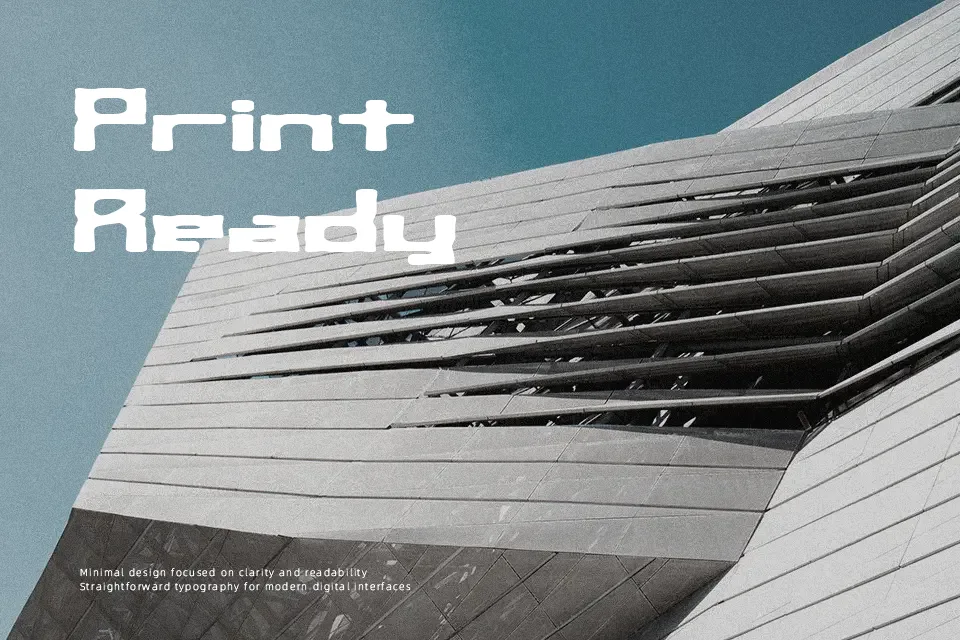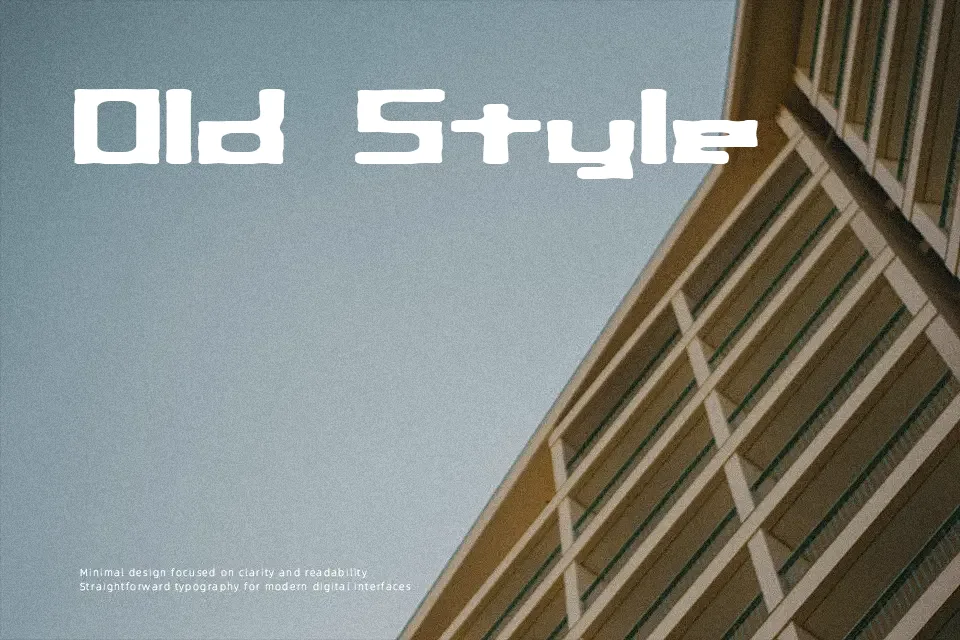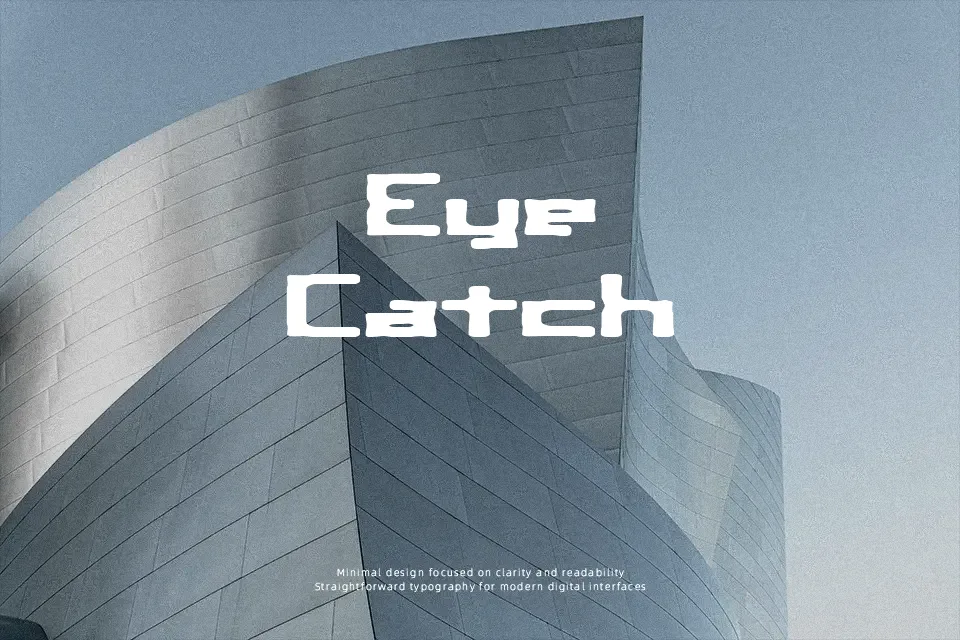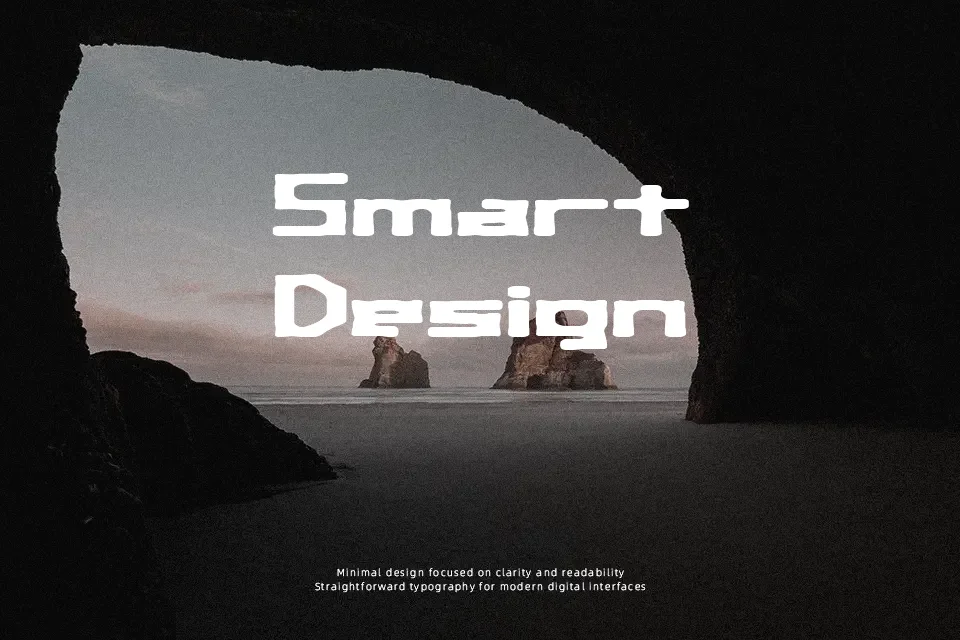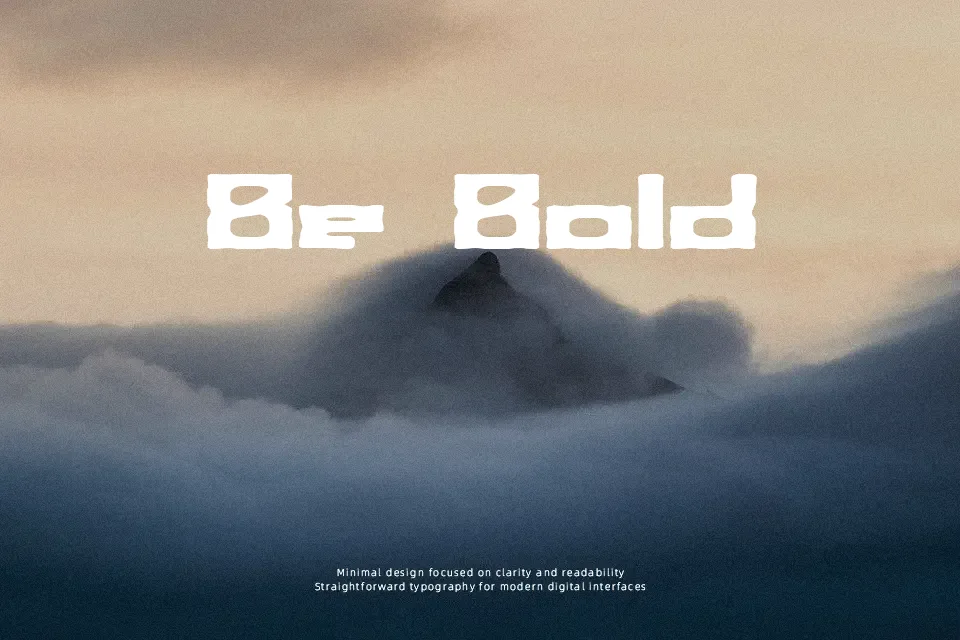
Square Route BRK Font
Square Route BRK Font uses rigid, squared construction and angular strokes to give short text a compact, technical display character. The uppercase forms appear consistent in weight and proportion, while the simplified curves and corners create a deliberately block-like rhythm. Its spacing works best when letters have room to stand apart in headlines, wordmarks, and graphic titles. The typeface is most effective at larger sizes, where its distinctive shapes remain easy to identify. In smaller text, the dense geometric forms can make individual characters less immediately clear, so it is a poor choice for extended reading.
Perfect for headline, logo, and music, with a bold and decorative style.